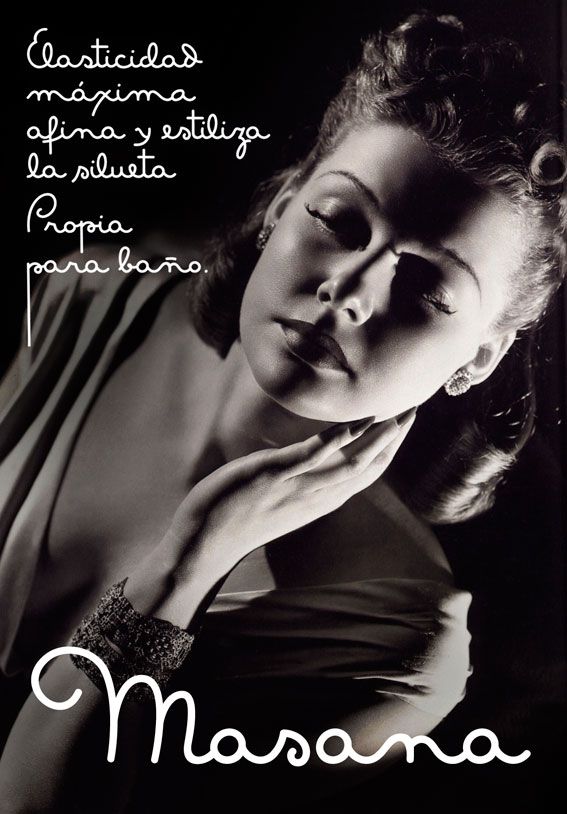
Шрифт Masana Script
This font is inspired by the handwriting of Catalan photographer Josep Masana from Barcelona who was also a publicist in the 1930's. It is my first OTF and it has plenty of everything; it is divided in 5 fonts that are a bit similar to one another. «MasanaScript 1 Propia» and «MasanaScript 2 Grata» are complete with alternative letters and alternative ligatures. «MasanaScript 3 Maxima» is complete but is mainly for letter substitutions and some of the letters do not ligate, the new addition to the group is MasanaScript 4 Silueta which is a brush-like version. And finally «MasanaScript 5 Extras» that speaks for itself. With these fonts (5 in 1) you can play switching letters from one Masana to the other. There are no alternative numbers or punctuations. I want to thank Adam, André, Eliason, Gargoyle, Nick and Scriptor Abbatiffae of the Typophile.com forum for all the help on my very first OTF. This font works at is best with applications that work OTF. This font is free for non-commercial use and donationware for commercial use. Make a donation through PayPal my account there is: